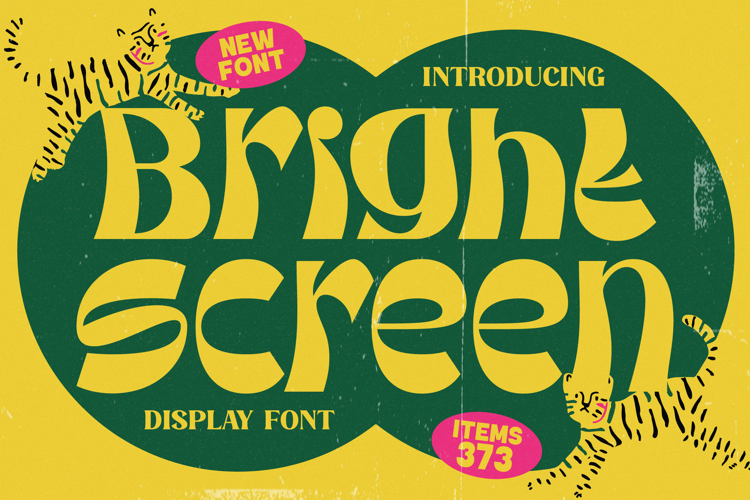
Bright Screen - Modern Display Font
Ignite your designs with the irresistible charm of Font Bright Screen - Modern Display Font . This exceptional display font is meticulously crafted to deliver a truly bold statement, immediately captivating audiences with its distinctive groovy aesthetic. Its character forms exude a vibrant, retro appeal that feels both nostalgic and refreshingly contemporary, perfect for projects demanding instant visual recognition and a joyful personality.
Experience unparalleled visual impact with Font Bright Screen - Modern Display Font , where every letter is a celebration of expressive design. The typeface features smooth, undulating contours and playful curves that give it an organic, handcrafted feel, ensuring your typography stands out. It effortlessly blends vintage charm with modern sophistication, making it a highly versatile asset for any creative endeavor.